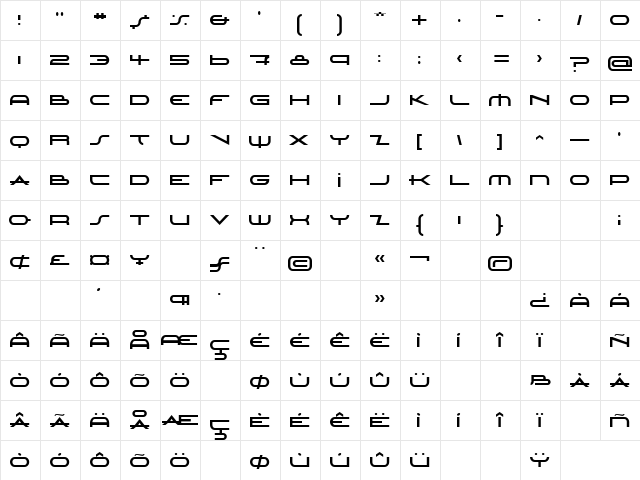
TLC Fan-Mail Fan Mail
Design Context for TLC Fan-Mail Typeface
TLC Fan-Mail offers clean, dependable letterforms without strong stylistic allegiance, making it a practical choice for designers who need flexibility.